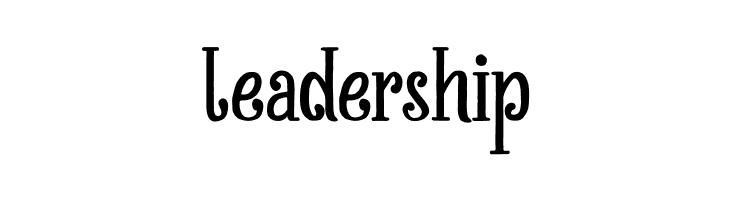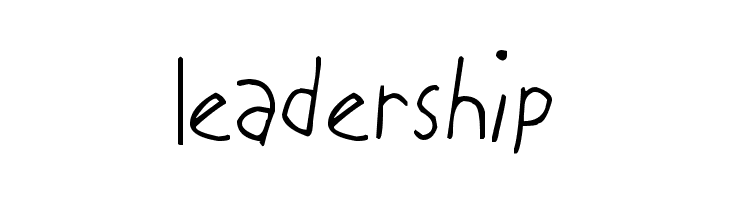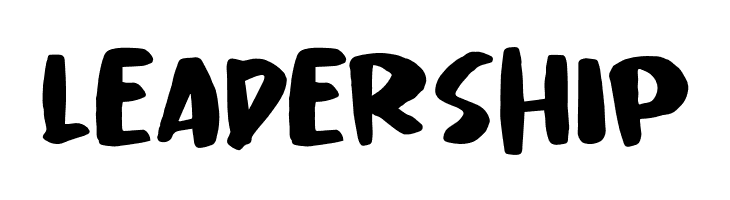
( Fonts by Casady & Greene )
A bold, geometric font with a modern and industrial style.
( Fonts by Kustomtype )
A playful, textured font with a chalk-like, hand-drawn appearance.
A bold, playful script font with a handwritten feel.
( Fonts by Kurdz - vividbluezz.weebly.com )
A playful, bold font with thick outlines and a cartoonish style.
A bold, expressive handwritten font with a playful and sophisticated style.
A bold, expressive script font with a hand-drawn, fluid style.
A whimsical collection of cartoon character icons with bold outlines and playful expressions.
( Fonts by NendesKombet )
A playful, hand-drawn font with a whimsical and friendly vibe.
A lively, cursive handwritten font with smooth, flowing strokes.
( Fonts by Thomas Ledin - tomledin.com )
A bold, playful font with a 3D effect and comic book style.
A bold, playful handwritten font with thick strokes and rounded edges.
( Fonts by HandletterYean )
A playful, curly, hand-drawn font with bold, rounded characters.
( Fonts by Roland Huse - rolandhuse.com )
A playful, hand-drawn font with a whimsical and casual style.
A bold, cursive script font with dynamic strokes and elegant flair.
( Fonts by Manjali Studio )
A bold, playful handwritten font with a modern, friendly style.
A bold, playful script font with flowing, cursive letters.
A playful, handwritten-style font with uneven, whimsical characters.
A casual, handwritten font with uneven, dynamic strokes.
( Zoid Xsa - www.thezoidxsaorganization.tumblr.com )
A playful, hand-drawn font with a sketchy, informal style.
( dcoxy - Greg Medina - www.dcoxy.com/ )
A playful, decorative font with a stitched, cursive style.
( dcoxy - Greg Medina - www.dcoxy.com/ )
A playful, decorative font with a stitched pattern and casual, handwritten style.
A playful, bold handwritten font with rounded, irregular strokes.
A bold, expressive script font with fluid, sweeping strokes and decorative flourishes.
A playful, handwritten font with rounded edges and a casual, friendly style.
( Fonts by Almarkhatype Studio )
A playful and whimsical font with decorative curls and loops.
A playful and decorative font with whimsical curls and swirls.
A casual, handwritten font with a playful and spontaneous style.
( Fonts by Astigmatic One Eye Typographic Institute - Brian J. Bonislawsky - astigmatic.com )
A bold, brush-like font with dynamic, hand-painted strokes.
A bold, playful font with bubble-like characters and thick outlines.
( Fonts by Roland Huse - rolandhuse.com )
A playful and whimsical script font with smooth, rounded strokes.